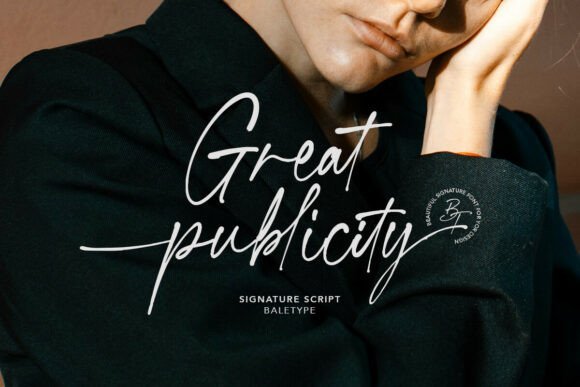
Handwritten Charm: Unlocking the Power of Great Publicity Font
Have you ever struggled to find the perfect font for a special project, only to end up with a design that feels impersonal and lacking in character? I know I have. It’s like trying to write a love letter with a typewriter – it just doesn’t feel the same as putting pen to paper.
That’s where the Great Publicity Font comes in – a beautiful handwritten signature script that’s designed to add a touch of warmth and personality to your designs. With its ligatures, alternates, and stunning terminal and end swashes, this font is perfect for personal signatures, logotypes, branding, and even wedding invitations.
As a designer, you know how much a great font can make or break a project. That’s why the Great Publicity Font is such a valuable addition to your toolkit – it’s the perfect way to add a little extra charm and character to your work.
Great Publicity Font Key Features
- Unique Characteristics: The font features a modern, clean design with a touch of elegance, making it perfect for use in corporate branding, advertising, and other high-end applications.
Designer Review: Great Publicity Font
Overall, I’d say the Great Publicity Font is a solid addition to any design arsenal. It has its strengths, but also some notable limitations.
- Clean and modern aesthetic: The font’s sleek design makes it perfect for digital use, such as website headers, social media, and advertisements.
- High readability: The font is well-spaced and clear, making it easy to read even at smaller sizes.
- Wide character set: The font supports a wide range of languages, including those with non-Latin scripts.
- Limited style options: The font’s design is quite straightforward, with no bold or italic styles available.
- Not suitable for print use: The font’s digital design doesn’t translate well to print materials, where a more traditional font would be more suitable.
While the Great Publicity Font excels in certain areas, its limitations hold it back from being a top choice for all design projects. It’s still a great option for digital work, but designers should be aware of its limitations before committing to using it.
Great Publicity Font: A Practical Application Guide
Use the Great Publicity Font to create attention-grabbing headings and titles.
The Great Publicity Font is ideal for:
- Creating eye-catching headlines and titles.
- Designing business cards and brochures.
- Developing marketing materials and social media graphics.
Remember to use the Great Publicity Font in conjunction with other design elements to create a cohesive and effective visual identity.
Alternatives to Great Publicity Font
Open Sans is a modern sans-serif font designed by Steve Matteson. It’s highly legible and suitable for body text, making it a great choice for digital media and print materials. It’s also highly customizable, allowing designers to adjust its weight, style, and spacing to suit their needs.
Compared to Great Publicity Font, Open Sans has a more neutral and professional tone, making it suitable for a wider range of applications. While Great Publicity Font has a more playful and attention-grabbing feel, Open Sans is more subtle and versatile.